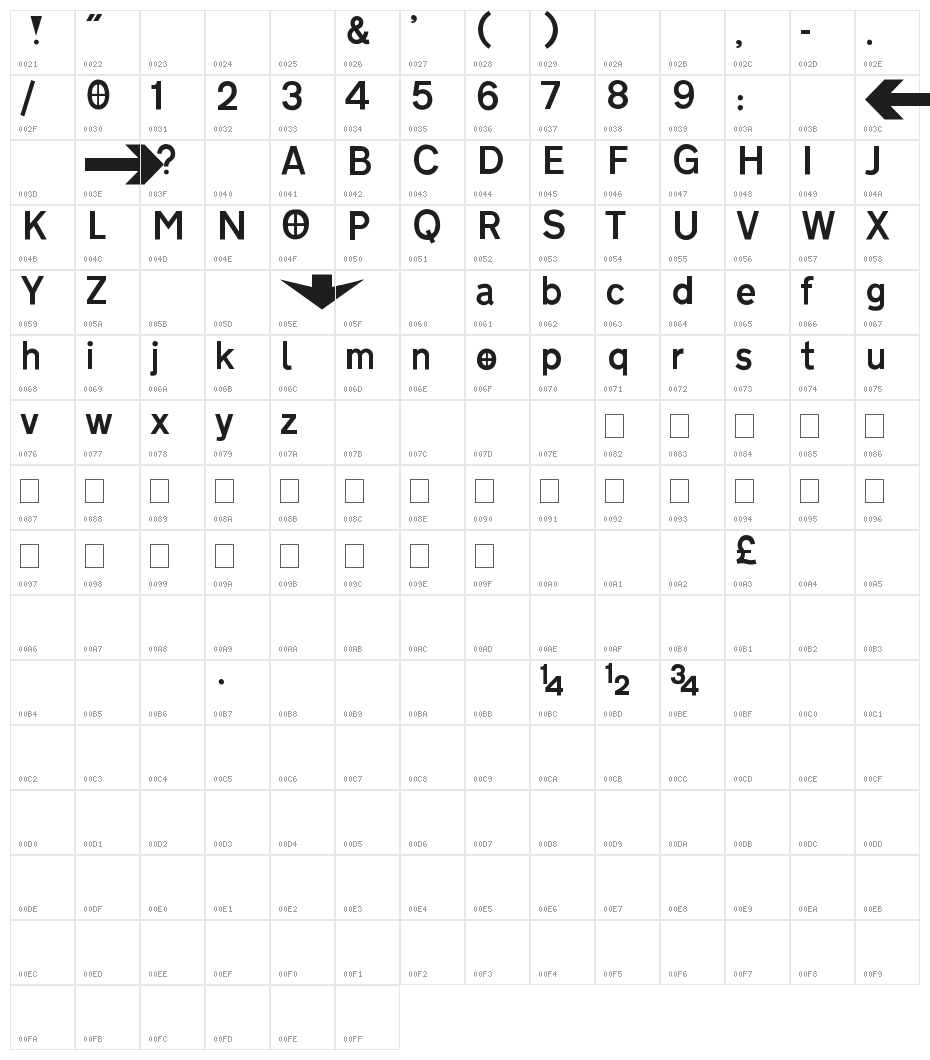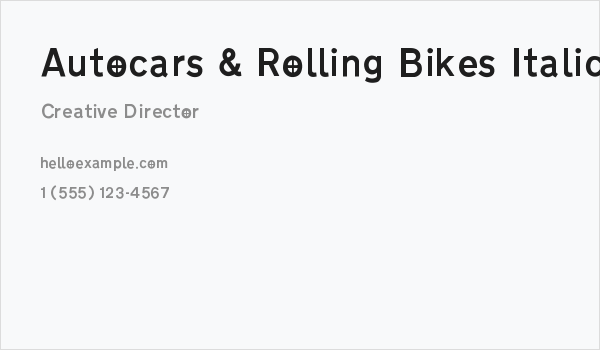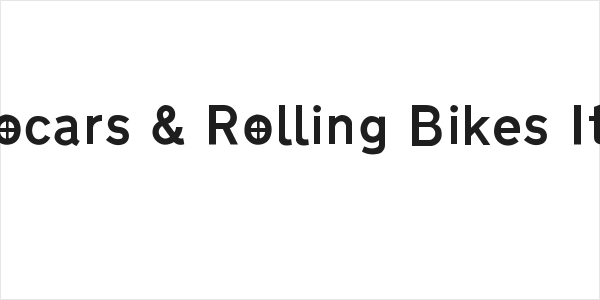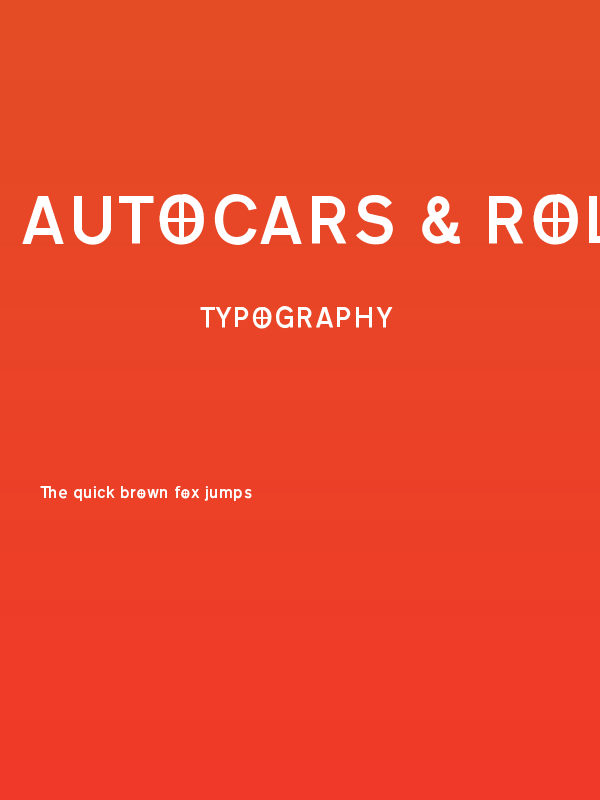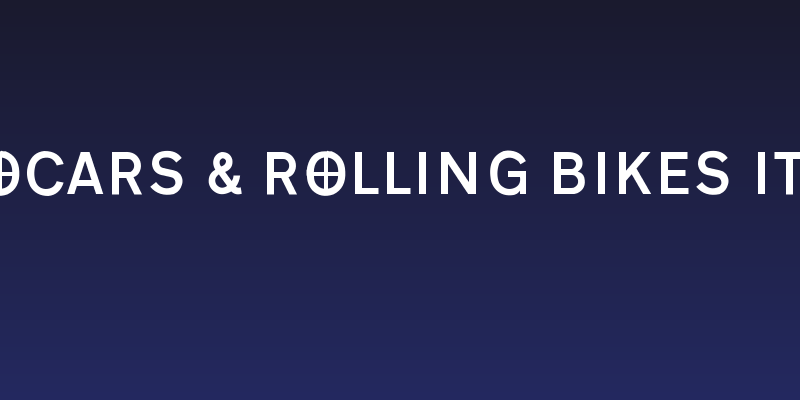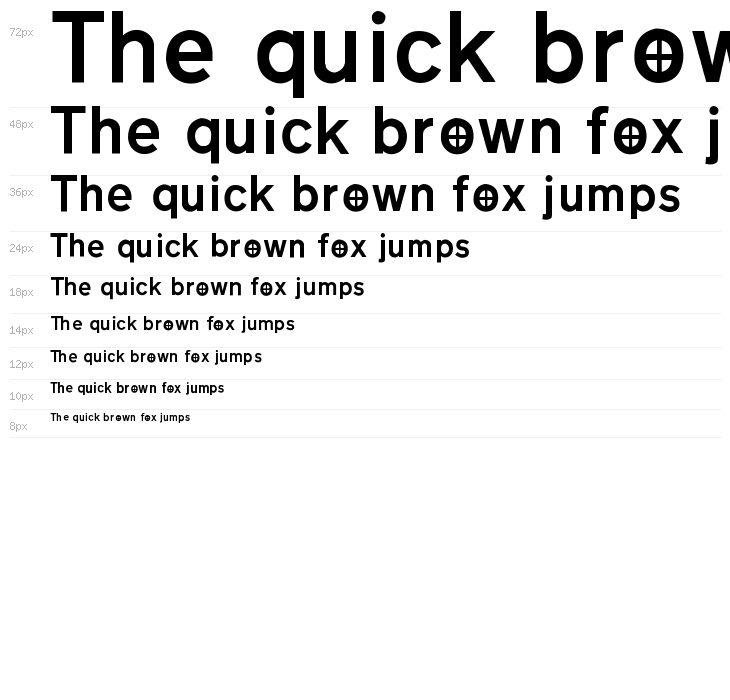
Autocars & Rolling Bikes Italic Font
Autocars & Rolling Bikes Italic Description
This font features a clean and modern sans-serif style, characterized by its geometric shapes and uniform stroke widths. The uppercase letters are bold and assertive, while the lowercase letters maintain a consistent and harmonious appearance. The numerals are clear and easily readable, making them suitable for various applications. Special characters are well-integrated, adding versatility to the font's usage. The overall design is sleek and contemporary, with a slight italic slant that adds a dynamic feel without compromising readability.